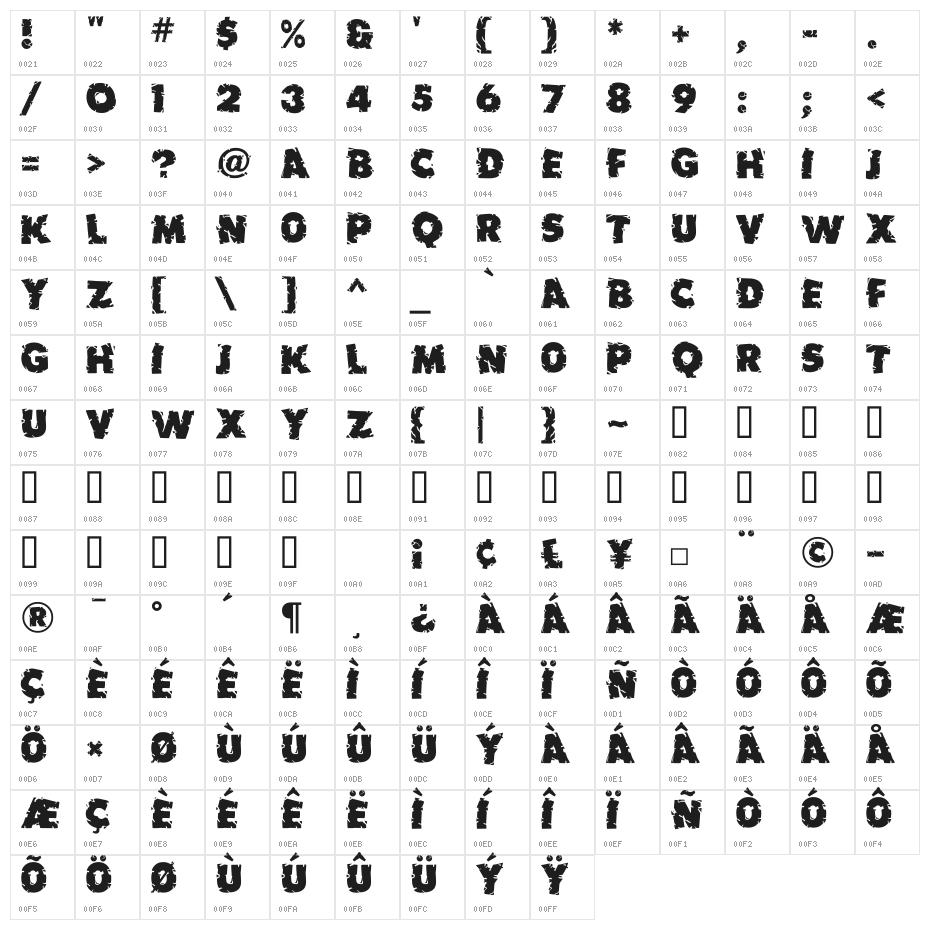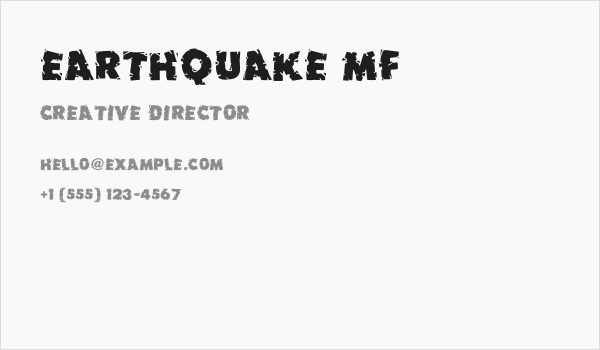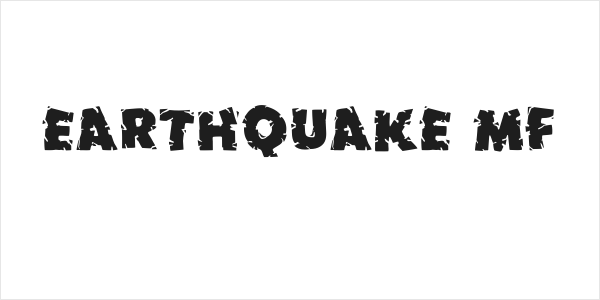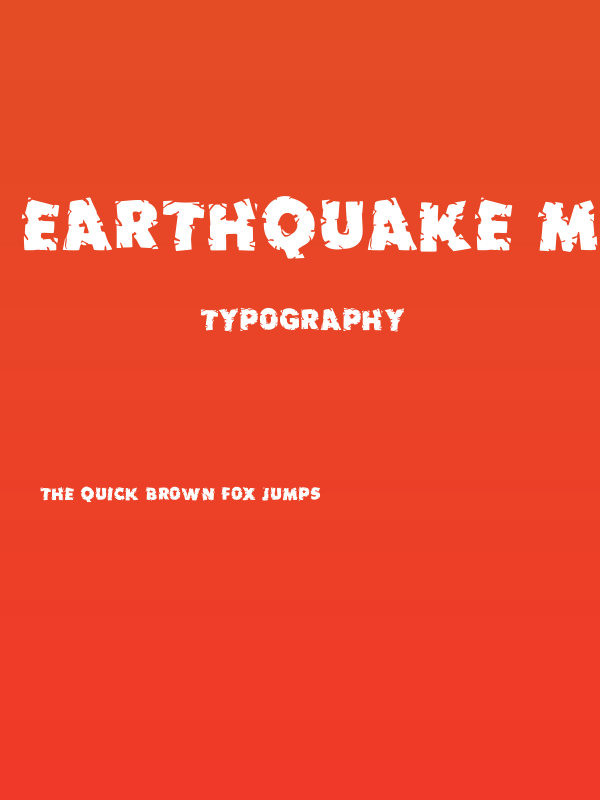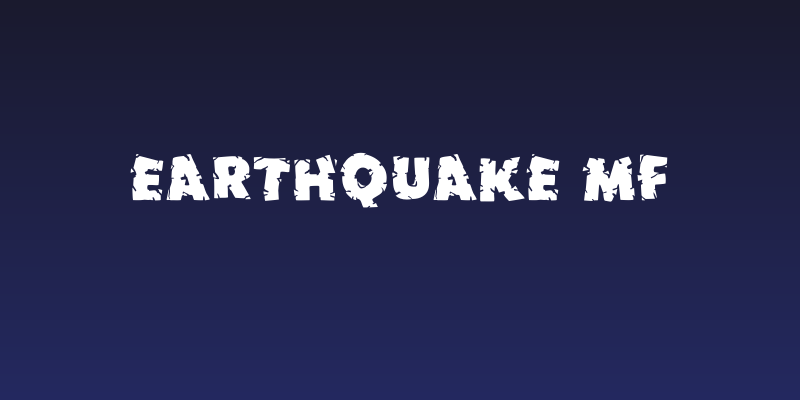
Earthquake MF Font
Earthquake MF Description
This font features a bold, distressed style that mimics the appearance of cracked or shattered surfaces, giving it a rugged and dynamic look. The characters are heavily textured, with irregular edges that suggest movement and chaos, reminiscent of an earthquake's impact. This design choice creates a sense of urgency and energy, making it stand out in any application. The uppercase and lowercase letters maintain a consistent weight, ensuring readability despite the distressed effect. Numbers and special characters are equally stylized, providing a cohesive look across all elements.
| Proposed Projects | Ideal for projects requiring a dramatic and impactful look, such as movie posters, event flyers, or branding for extreme sports. |